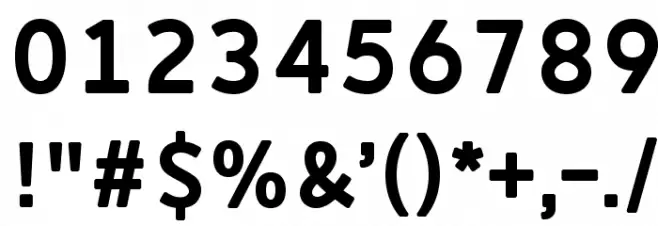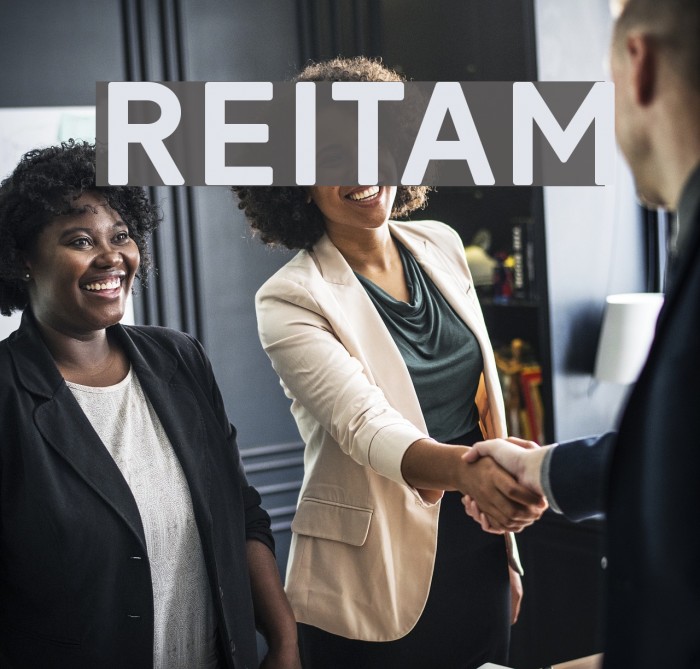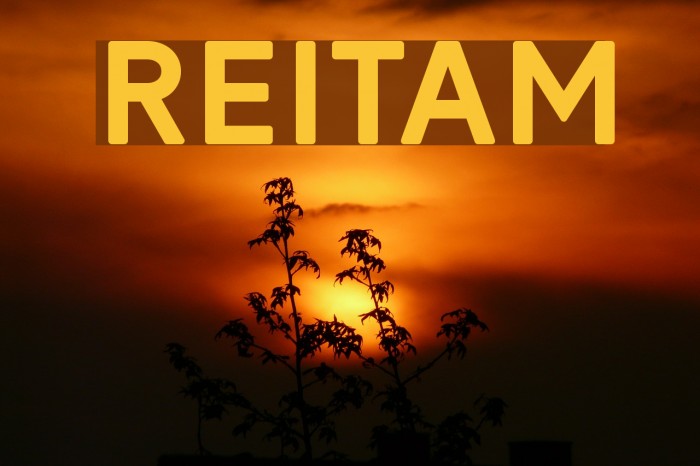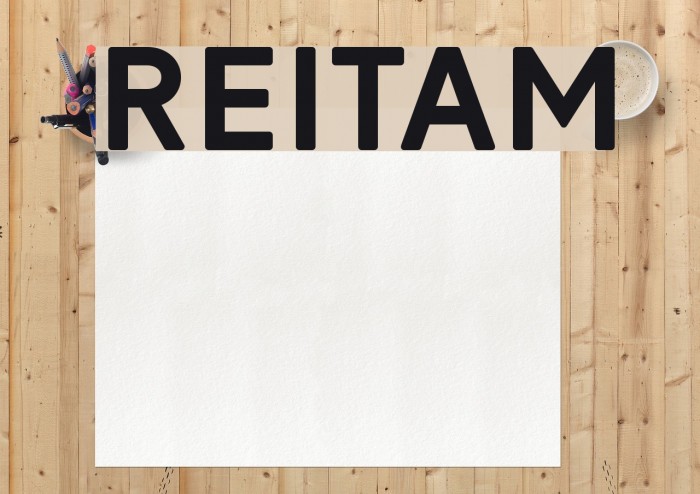
Reitam Font
Reitam Description
This font features a clean and modern sans-serif design, characterized by its simplicity and clarity. The letters are evenly spaced with a consistent stroke width, providing a balanced and harmonious appearance. The uppercase and lowercase letters maintain a uniform height, enhancing readability. The numerals are straightforward and align well with the overall style, making them suitable for various applications. The special characters are clearly defined, adding to the font's versatility. This font is ideal for projects that require a contemporary and professional look.
| Use Case | Headlines, Body text, Logos |
| Proposed Projects | Ideal for branding, web design, corporate materials, and editorial layouts. |